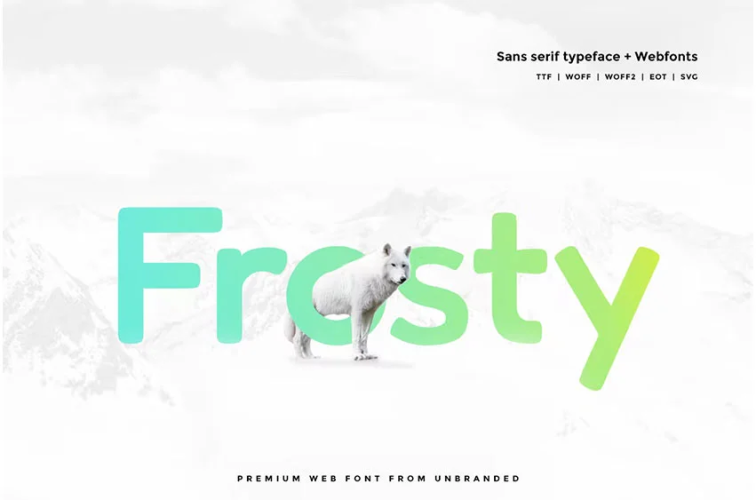
Frosty Font
Frosty Font Typeface Another modern fantastic sanserif typeface from Unbranded, which delivers a remarkable unique typography style. The pack includes OTF, TTF, and Web Fonts (all EOT, SVG, TTF, WOFF included).
Where Frosty Font works best
Headlines and titles
Frosty Font has enough character to carry a headline on its own; set it large and keep the supporting text plain.
Brand and product names
Short strings are where this typeface is strongest — a name, a label, a cover line.
Social and video graphics
Set Frosty Font over a flat colour or a quiet photograph so the letterforms stay the focus.
What kind of work does Frosty Font suit?
It sits in the Web Fonts group and reads as download, modern, typeface, web fonts. That makes it a candidate wherever those qualities help: headings, packaging, social graphics and brand work. Set it at the size you plan to use before deciding.